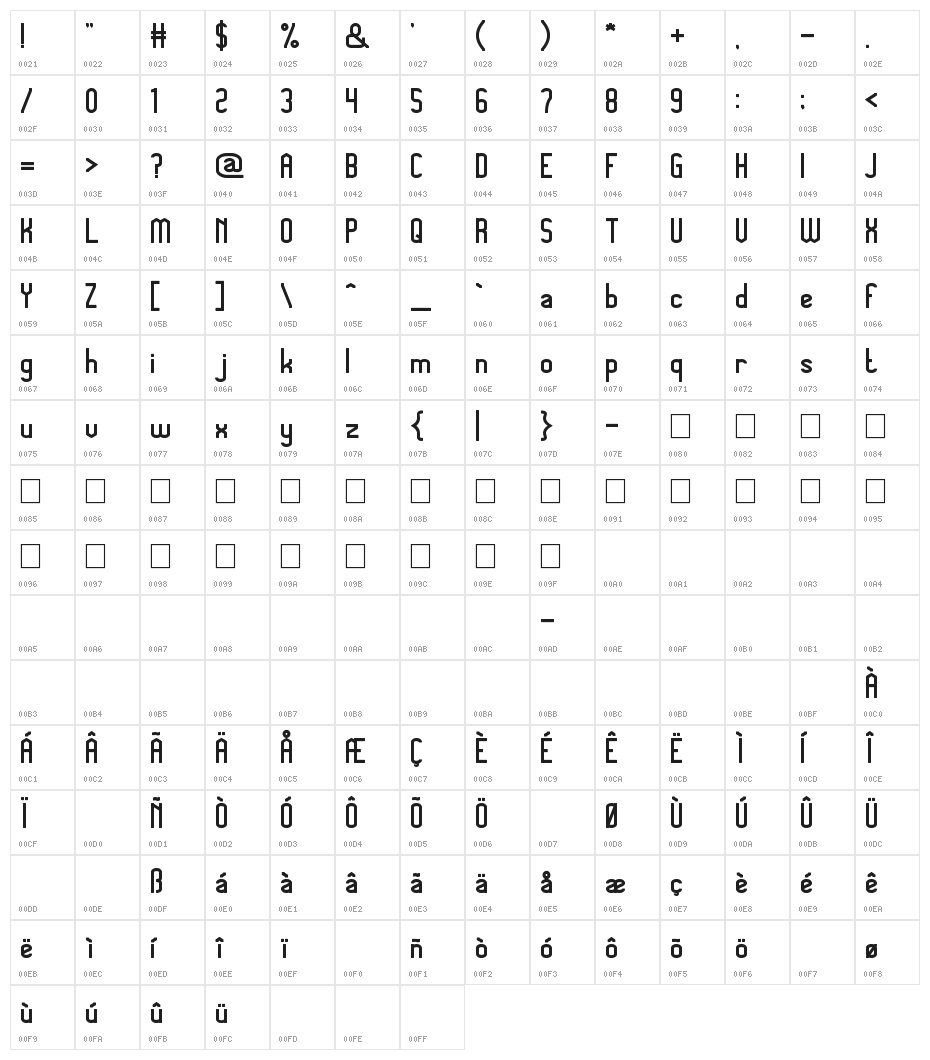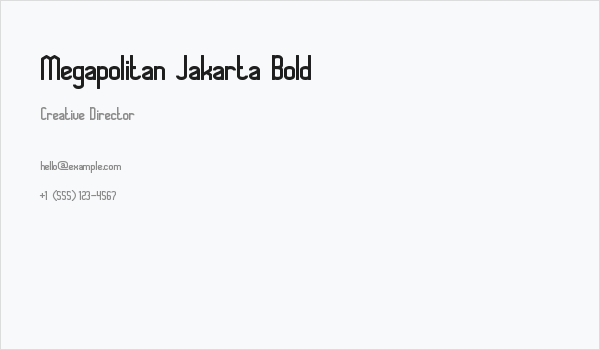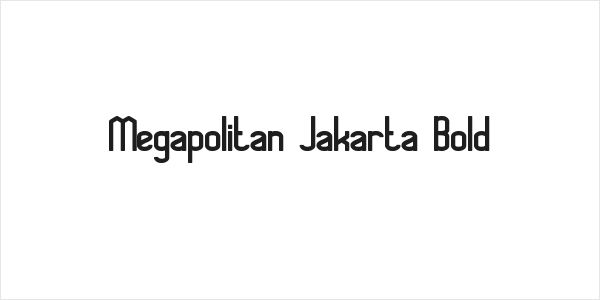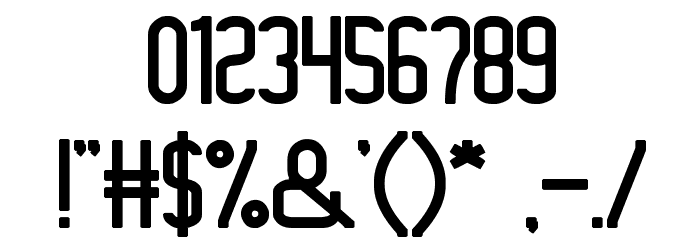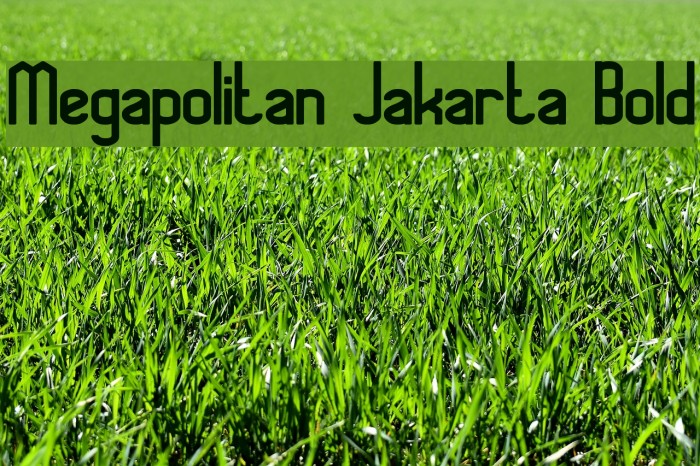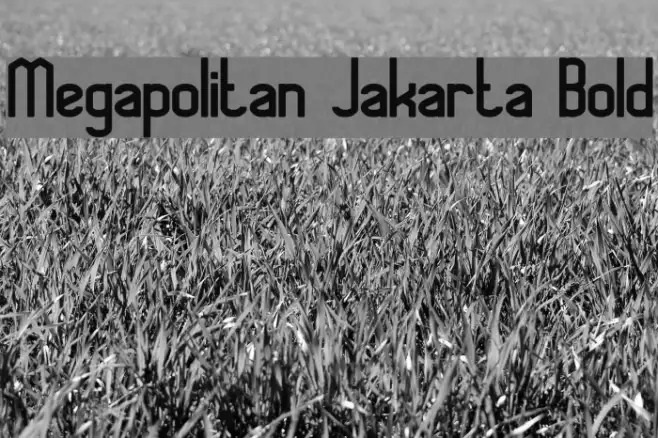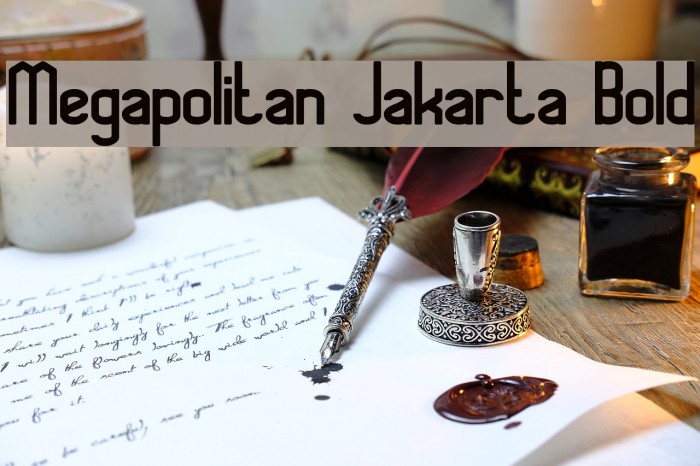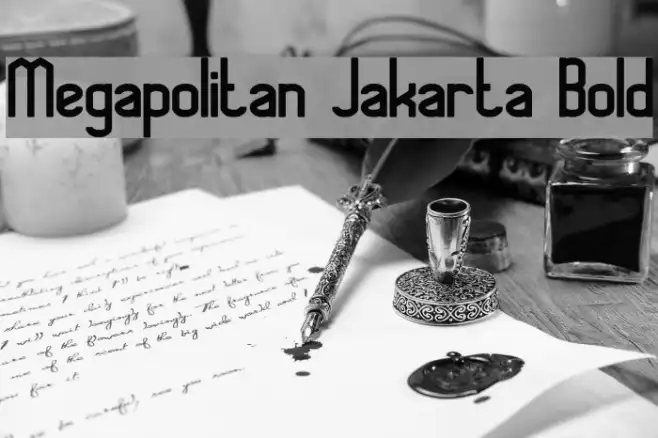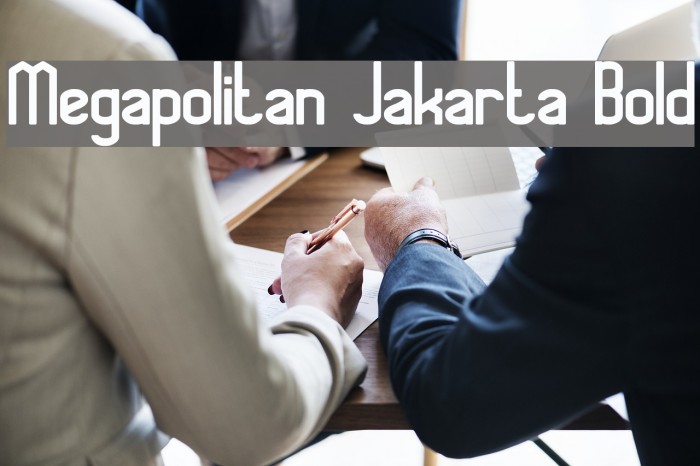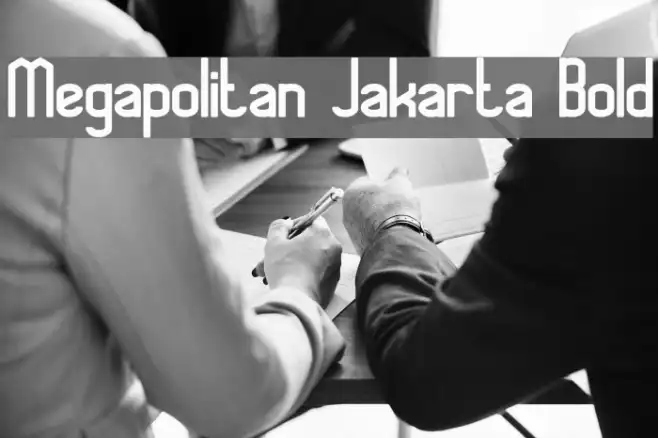
Megapolitan Jakarta Bold Font
Megapolitan Jakarta Bold Description
This font features a bold and modern design with a geometric structure. The characters are constructed with clean, straight lines and rounded edges, giving it a contemporary and sleek appearance. The uppercase and lowercase letters maintain a consistent height, contributing to a uniform look. The numerals and special characters are designed with the same geometric precision, ensuring readability and style. This font's boldness makes it stand out, while its modern aesthetic keeps it versatile for various applications.